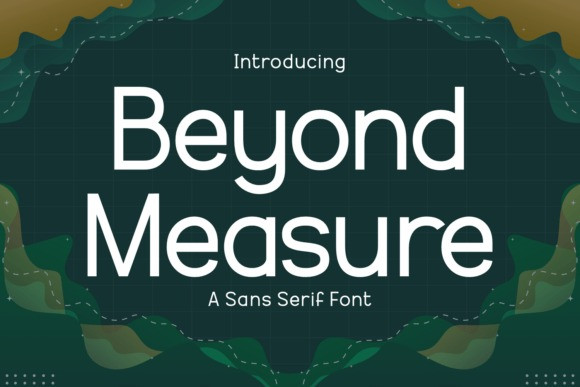
Beyond Measure Font
Beyond Measure Font, a sans serif font. This visual theme of measurement and exploration perfectly complements the font’s clear, modern, and highly versatile character.